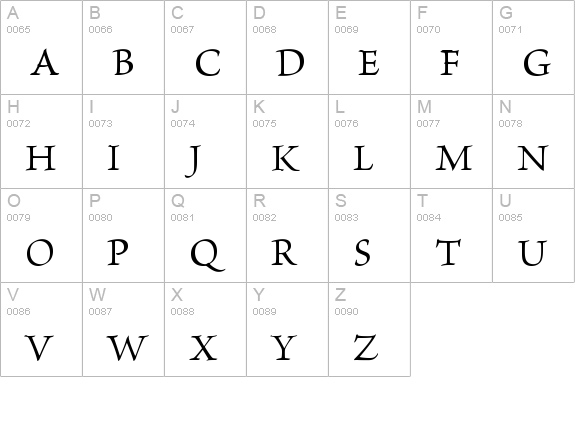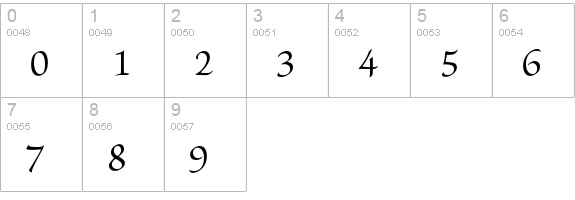
Brioso Pro is a sophisticated and elegant typeface that exudes timeless charm and modern flair. With its clean lines, graceful curves, and subtle serifs, this font is perfect for adding a touch of class to any design project. Whether you're creating invitations, branding materials, or editorial layouts, Brioso Pro will elevate your designs with its refined aesthetic. One of the best things about Brioso Pro is that it is completely free to download at FontsMarket.com. This means you can access this premium font without any cost, making it a valuable addition to your font collection. Don't miss out on the opportunity to enhance your creative projects with the beauty and versatility of Brioso Pro. Download it today and see the difference it can make in your designs.